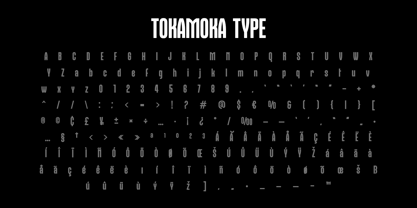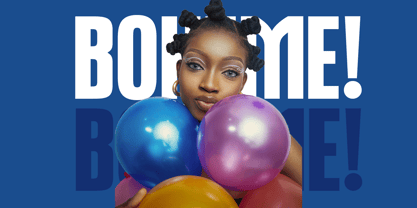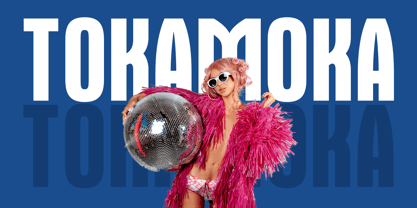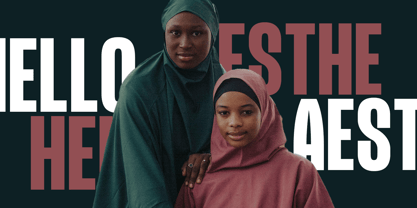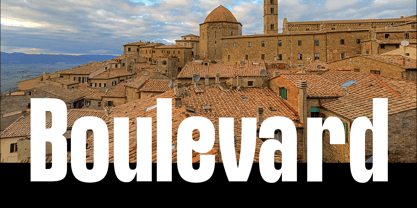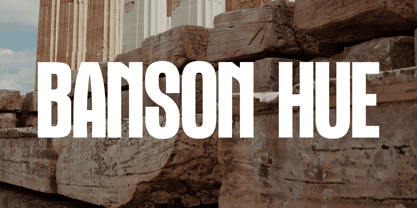
Tokamoka Display
by FoxType
The Tokamoka Display Font Family was designed by Evin Tony and published by FoxType. Tokamoka Display contains 4 styles and family package options. More about this family
Tokamoka Display is a modern, precision-crafted typeface designed to make a statement. With its clean lines, sharp edges, and geometric elegance, this font brings a refined yet striking aesthetic to any project. It comes in 4 versatile weights, giving you full control over hierarchy and visual tone—whether you need something light and understated or bold and commanding.
Ideal for magazine covers, posters, headlines, branding, album art, and other high-impact display uses, Tokamoka Display stands out with its strong presence while maintaining clarity and versatility. Whether you're creating minimalist layouts or bold editorial spreads, this font delivers professional, polished results every time.
Upgrade your design toolkit with Tokamoka Display – where Tokamoka Display's modern edge meets timeless typography.